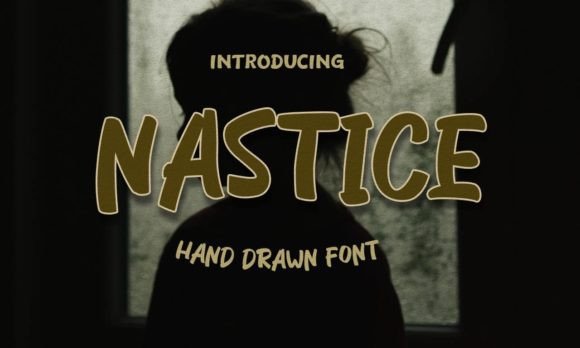
Embark on a typographic voyage with Nastice Font, a captivating script font crafted to evoke the allure of beauty and grace. This hand-brushed masterpiece, created by Typecase's creative minds, exudes a natural and clean charm, ready to transform your designs into visual spectacles.
Step into a world where elegance meets versatility, where Nastice's fluid strokes dance across your screens, captivating audiences with its captivating allure. With its diverse range of applications, Nastice effortlessly elevates logos, branding, packaging, and social media posts, adding a touch of sophistication that resonates with your audience.
Unleash the power of expression as Nastice breathes life into your creative endeavors. Watch as your words take on a new persona, capturing hearts and igniting imaginations. From delicate branding elements to captivating social media campaigns, Nastice weaves its magic, leaving an unforgettable impression that sets your brand apart.
With Nastice by your side, unlock a treasure trove of design possibilities. Let its natural charm adorn your beauty product packaging, creating an irresistible allure that draws customers in. Craft captivating logos that radiate elegance, embodying the essence of your brand's identity.
Harness the allure of Nastice and elevate your creative vision to unprecedented heights. Experience the transformative power of this exquisite font, and witness how it propels your designs into the realm of extraordinary. Embrace Nastice, and unlock the gateway to a world where beauty and functionality harmoniously intertwine.